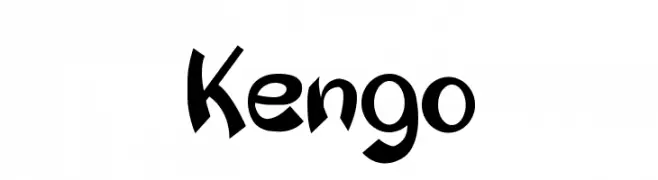
( Lukas Krakora - www.typewriterfonts.net/ )
A vintage, typewriter-style slab serif font with a distressed texture.
( Lukas Krakora - www.typewriterfonts.net/ )
A playful, hand-drawn style font with rounded, irregular strokes.
( Michael Gaines )
A modern, geometric font with rounded edges and circular cutouts, offering a playful yet clean aesthetic.
( Nermin Kahrimanovic - www.behance.net/nermink )
A bold, dynamic font with a brush-like, artistic style.